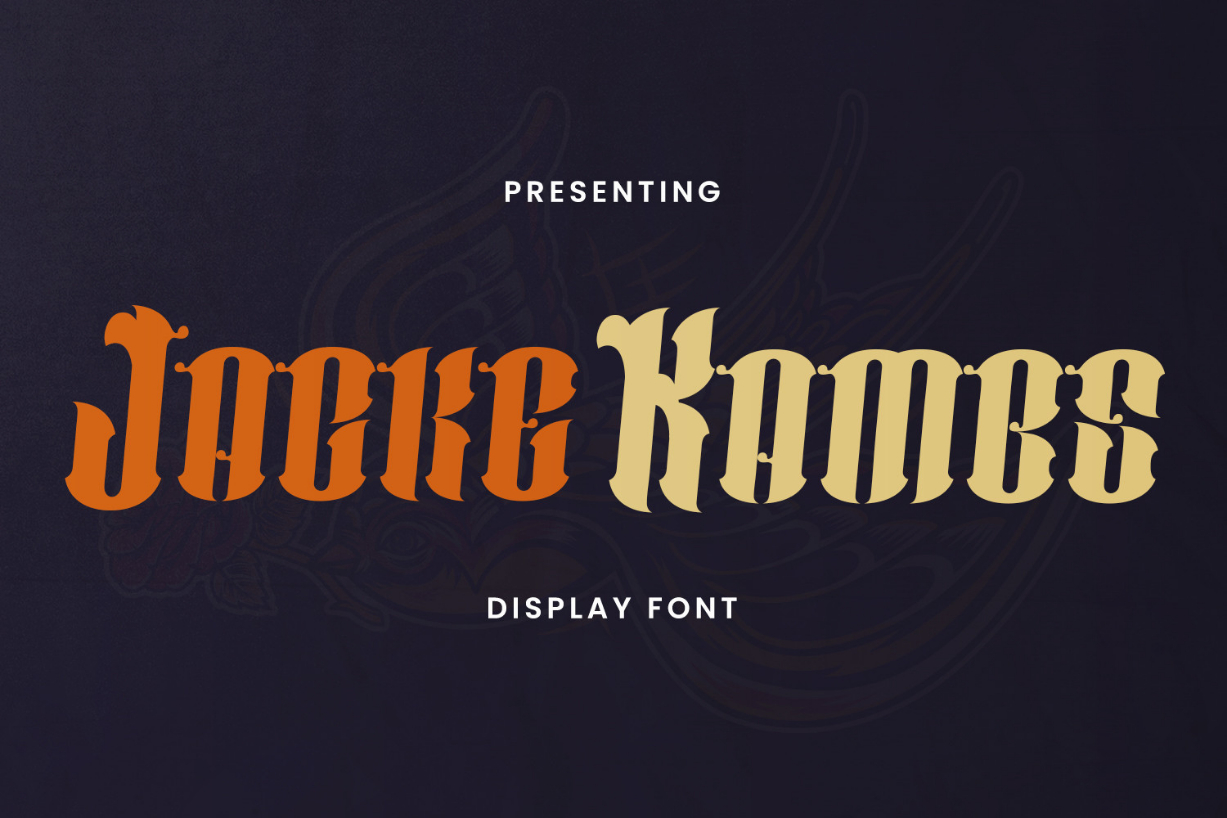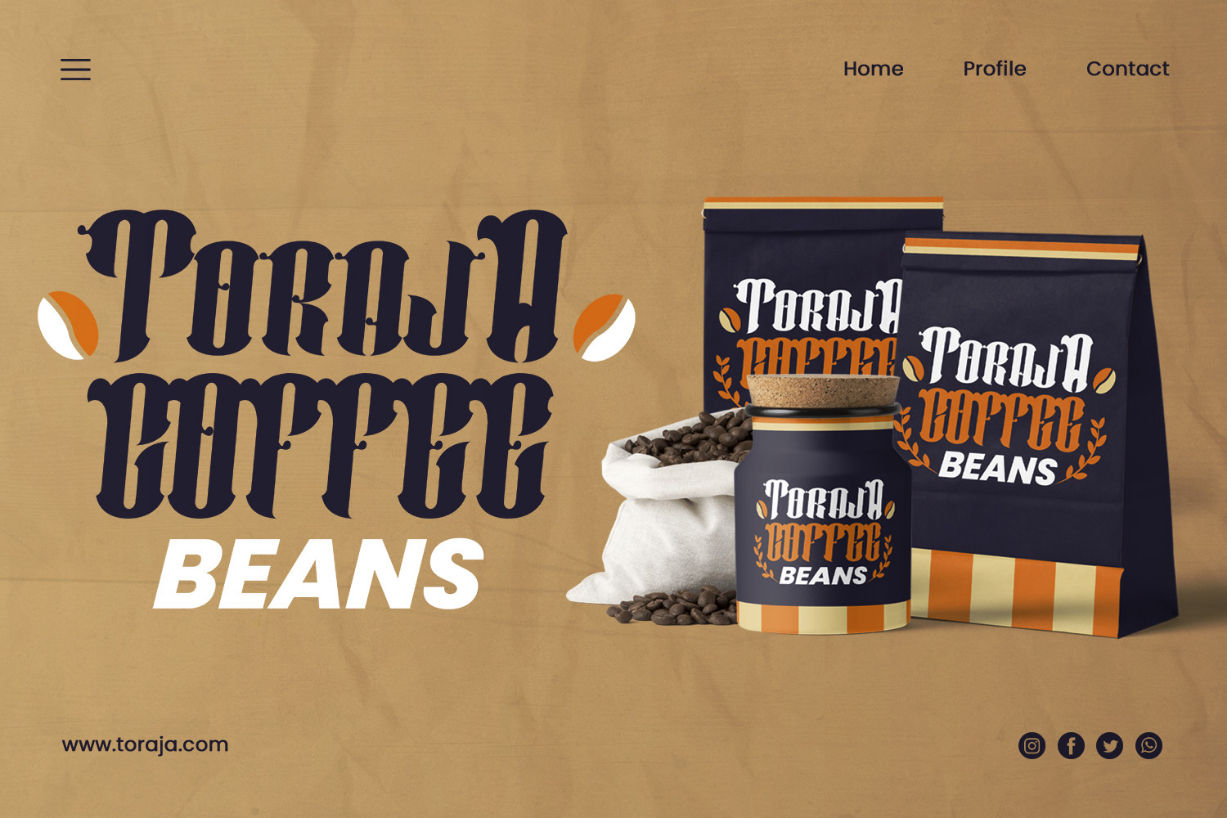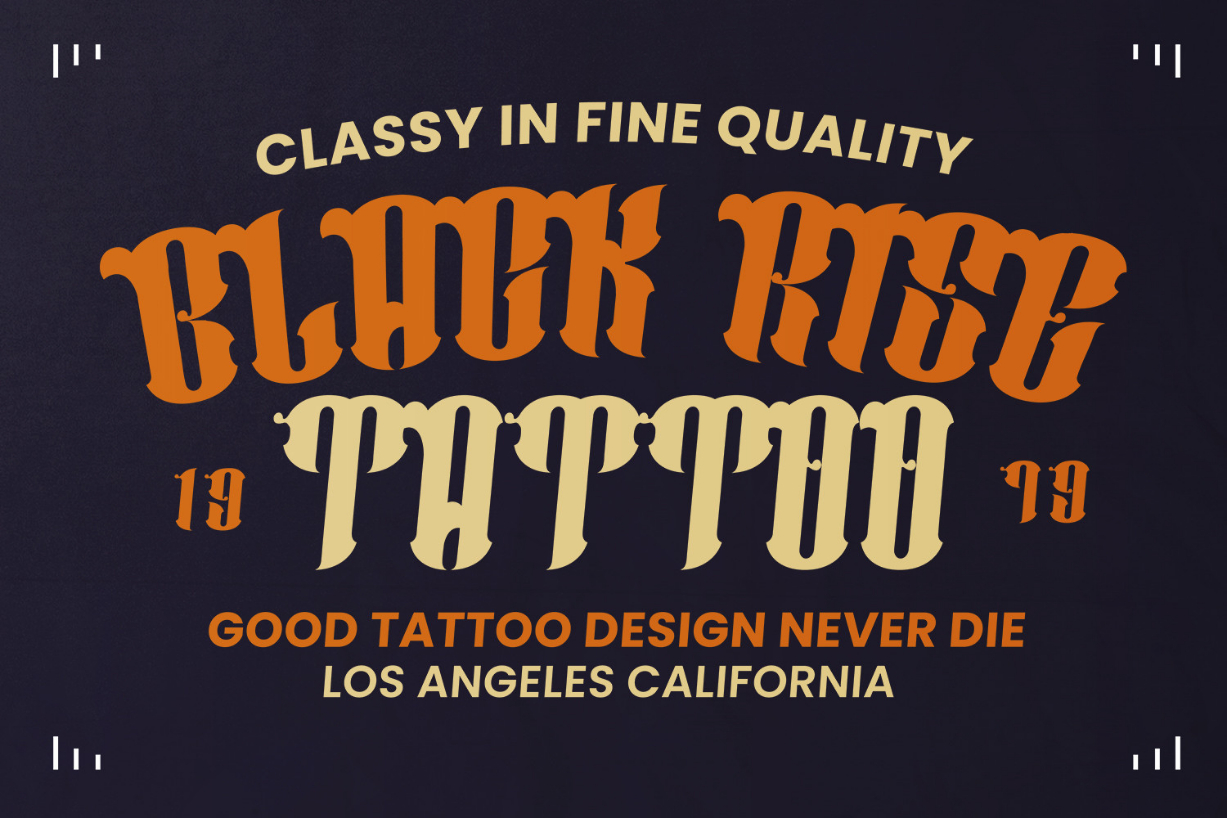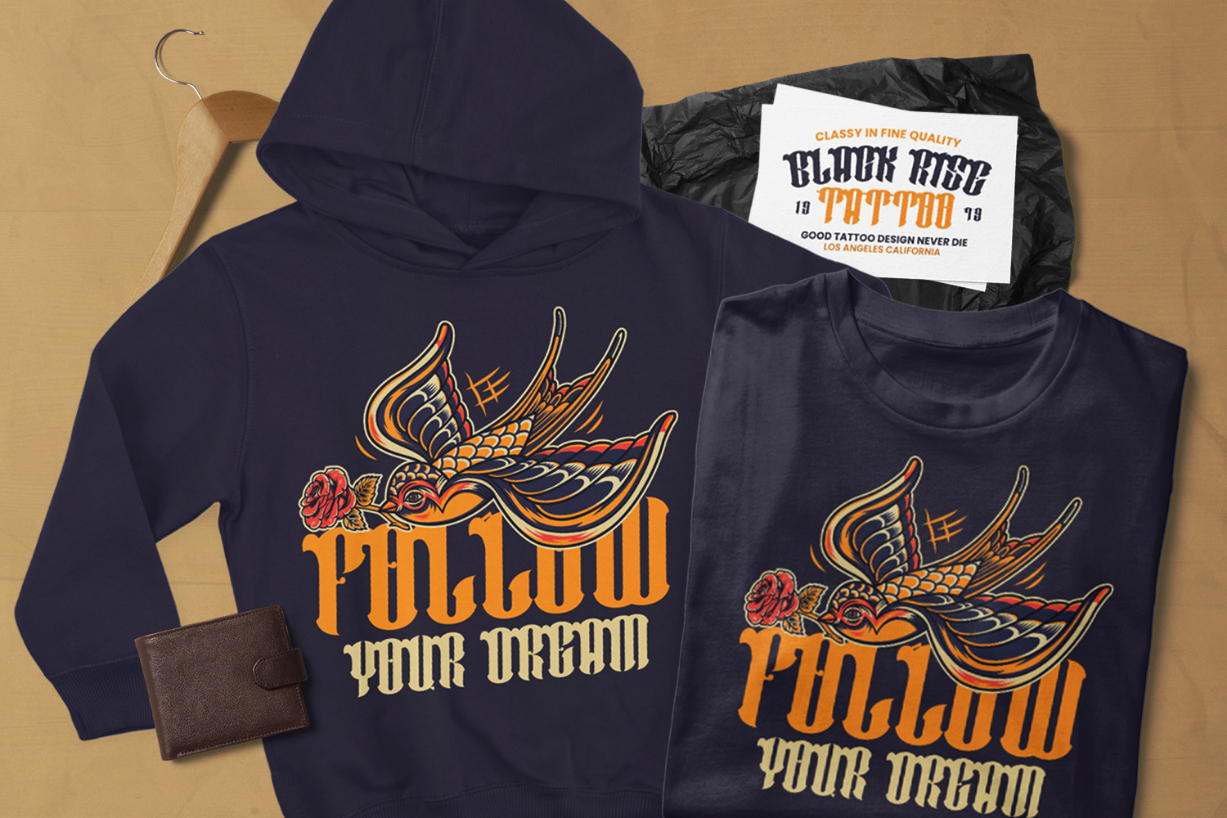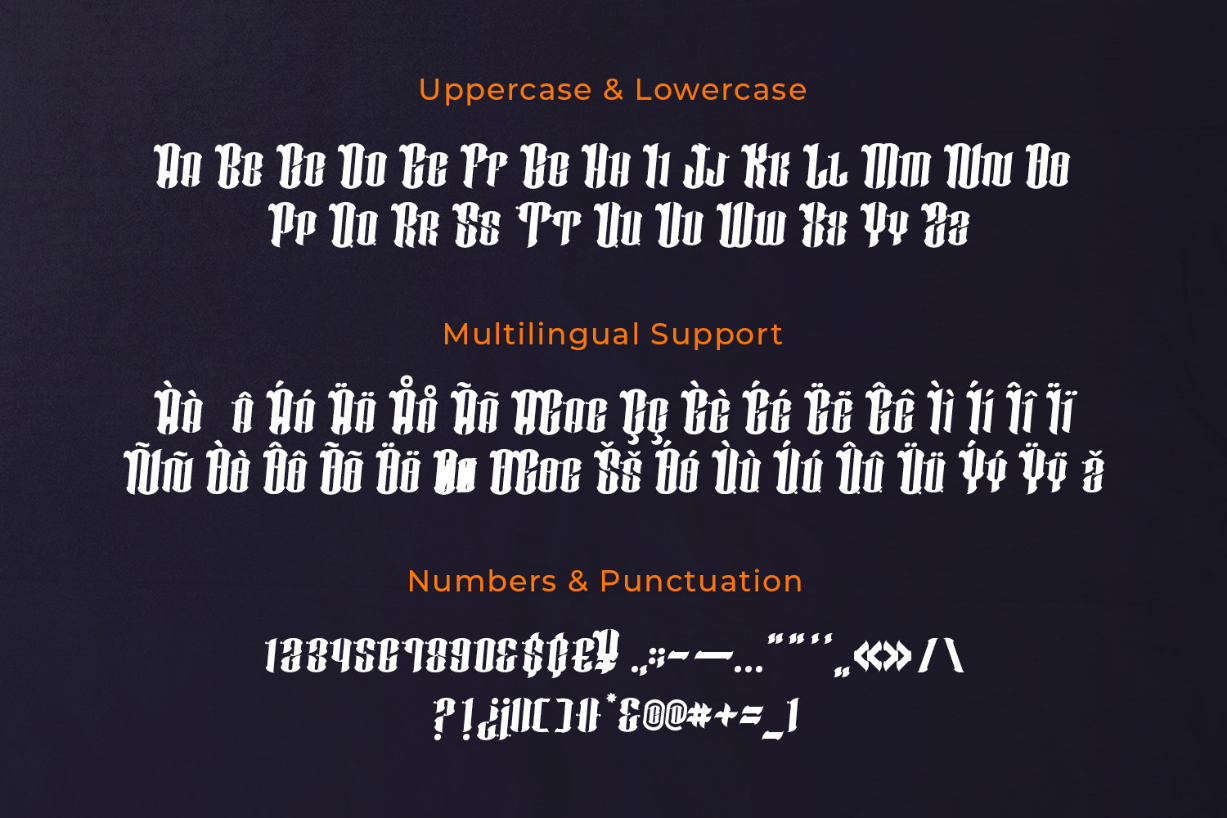
Jacke Kambs Font
About Jacke Kambs Font
Jacke Kambs is a gothic and blackletter font. It is imposing and features uniquely shaped letters, and as a result, it will easily match a wide range of creations that require a distinct touch.